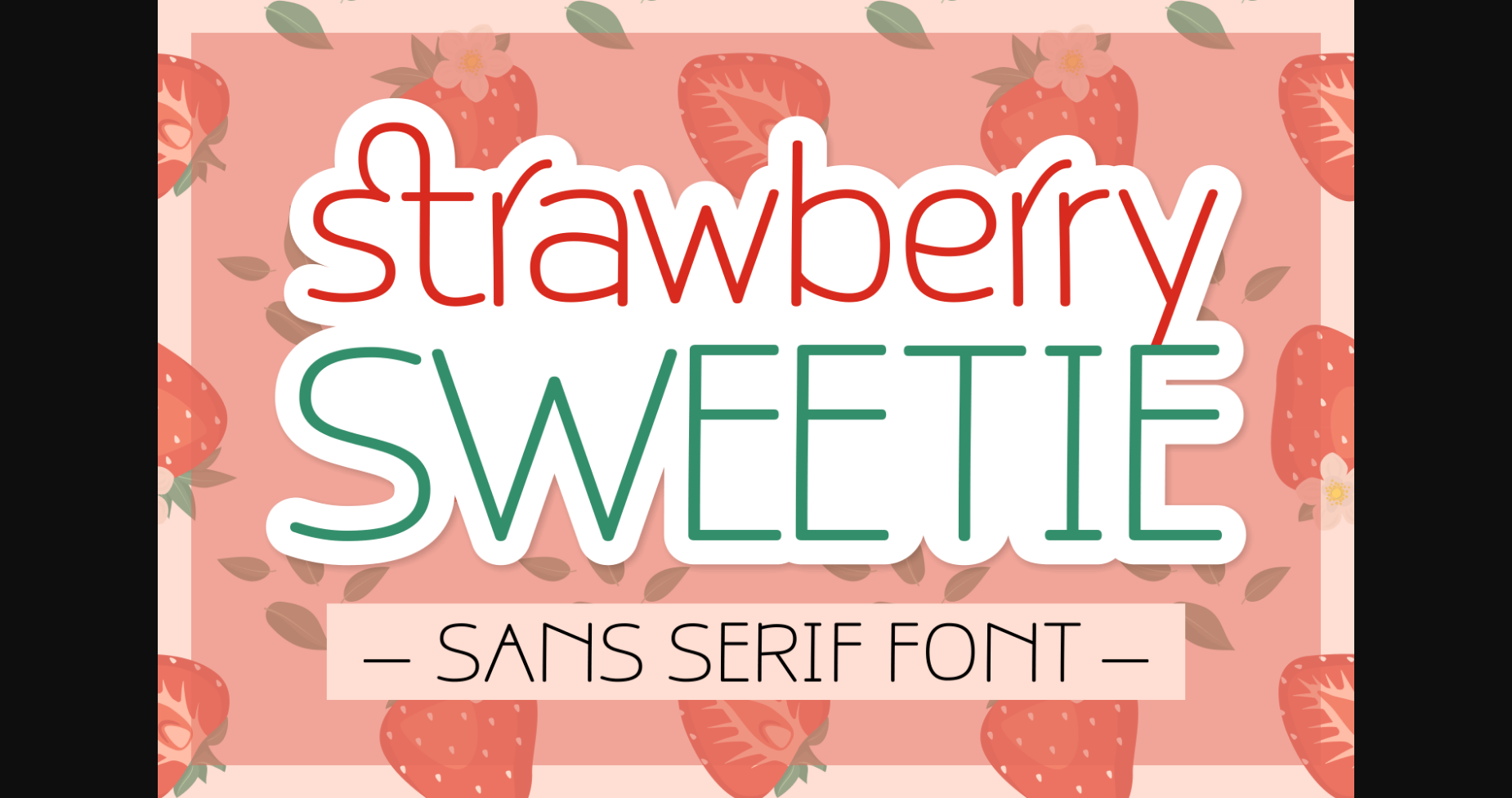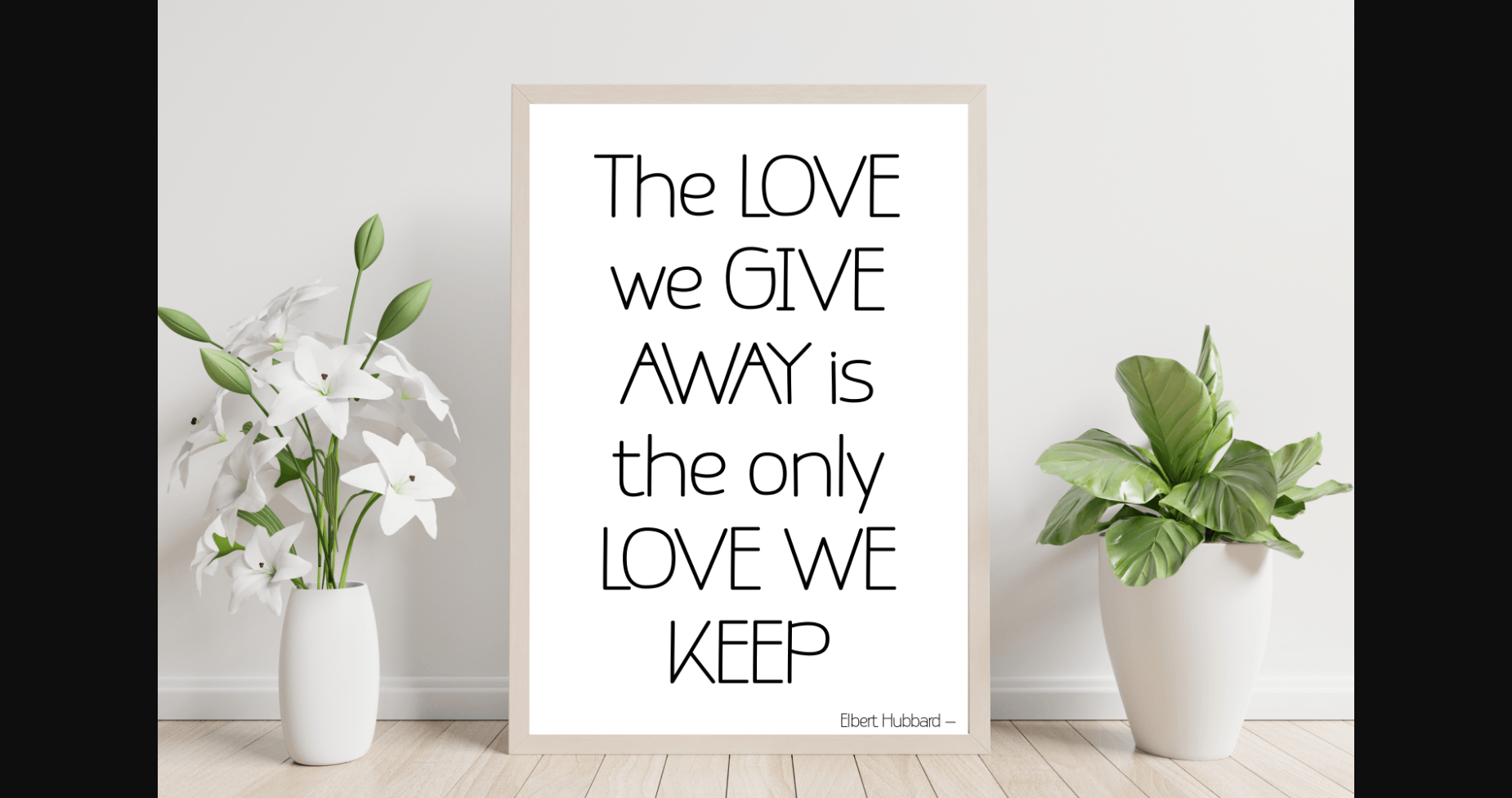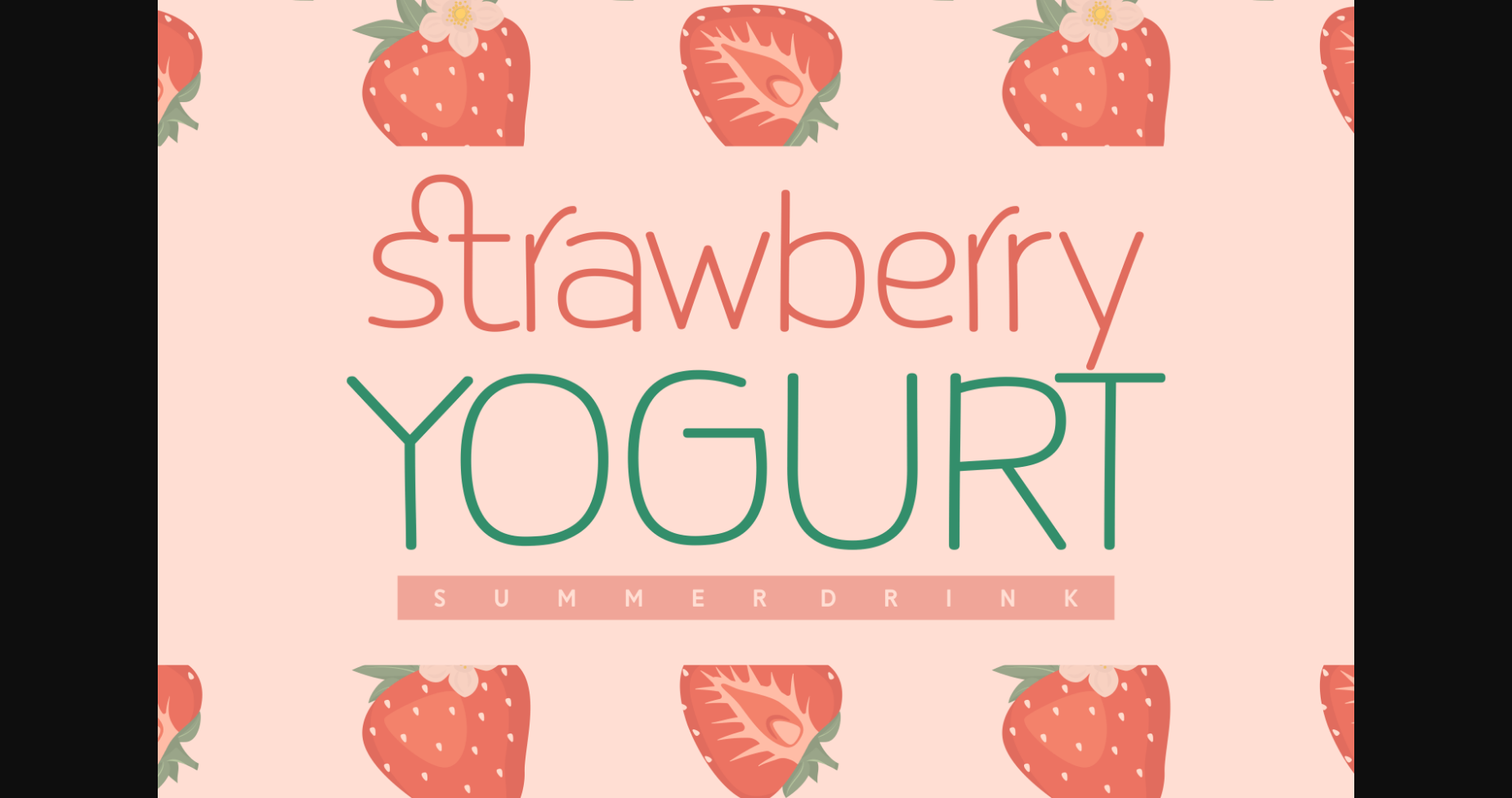
About Strawberry Sweetie Font
Strawberry Sweetie is a clean and sweet sans serif font. It can easily be matched to an incredibly large set of projects, so add it to your creative ideas and notice how it makes them stand out!